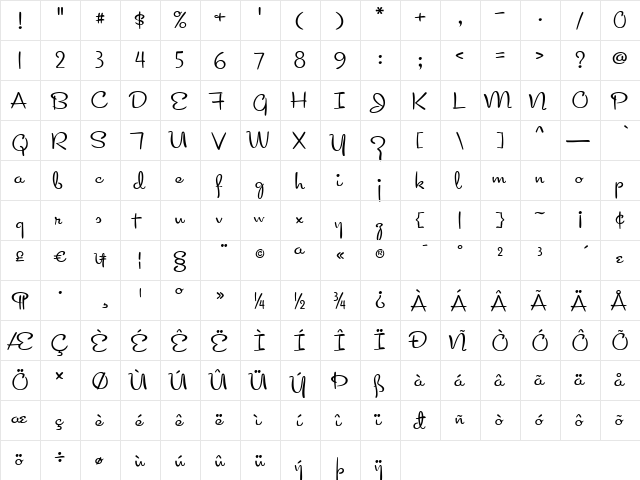
Cocktail Script Medium
| Foundry | Font Diner |
| Designer | Stuart Sandler |
Design Context for Cocktail Script Typeface
Cocktail Script brings a calligraphic fluidity to the page — its connecting strokes and expressive curves give it an unmistakably human quality.
Font Pairing: Combine Cocktail Script with a simple geometric sans for maximum contrast — the tension between flowing curves and clean structure is a classic typographic pairing.
Pro Tip: Use Cocktail Script for short runs of text — names, titles, or taglines. Extended body copy in script faces tires the eye quickly.